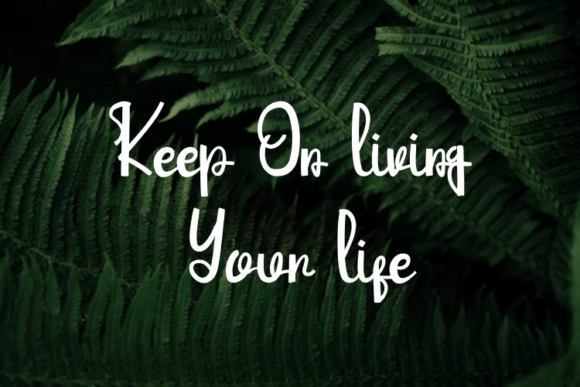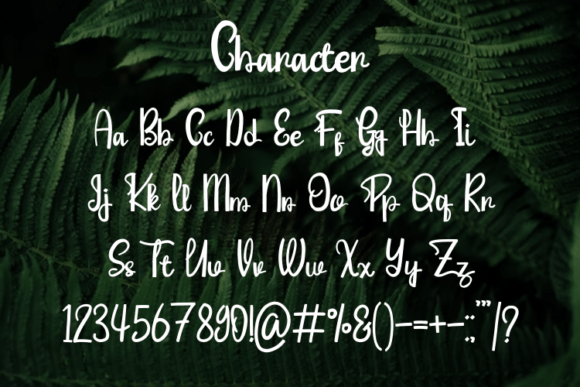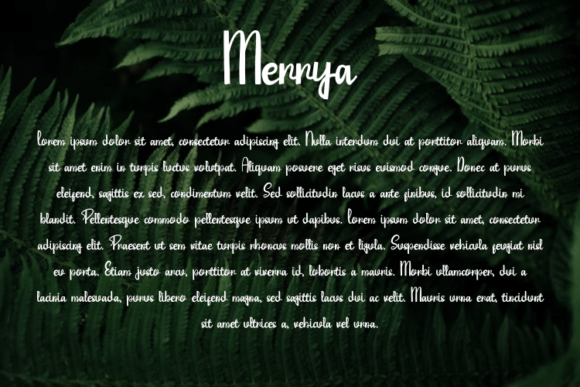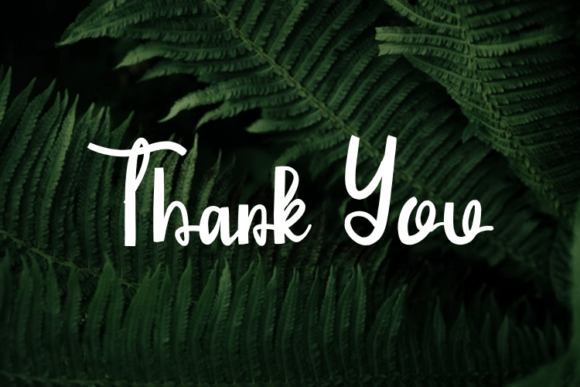
About Merrya Font
**Merrya: A Friendly and Casual Handwritten Font for All Occasions**
**Merrya** is a friendly and casual handwritten font that adds a touch of warmth and approachability to your designs. Whether you’re working on crafts, digital design, presentations, or greeting cards, this versatile font has the potential to become your favorite choice for any occasion.
**Merrya** stands out with its welcoming and carefully crafted handwritten letterforms, exuding a sense of informality and friendliness. The font’s easygoing strokes and friendly appearance make it a versatile and inviting option for a wide range of projects.
This font’s versatility ensures it can adapt to various design applications. Whether you’re creating digital content, crafting handmade cards, or presenting ideas, **Merrya** adds a dash of approachable personality to your work.
In crafts and handmade creations, this font enhances the personalized and friendly aspects of your projects, making them engaging and memorable.
For digital design and presentations, **Merrya** adds a warm and inviting tone, connecting with your audience.
In conclusion, **Merrya** is more than just a font; it’s a design asset that brings a sense of friendliness and informality to your creative projects. Whether you’re designing for personal expression, professional presentations, or crafting, choose **Merrya** to infuse your work with its unique and approachable character. Embrace its casual and friendly design, and let your creativity shine for all occasions.